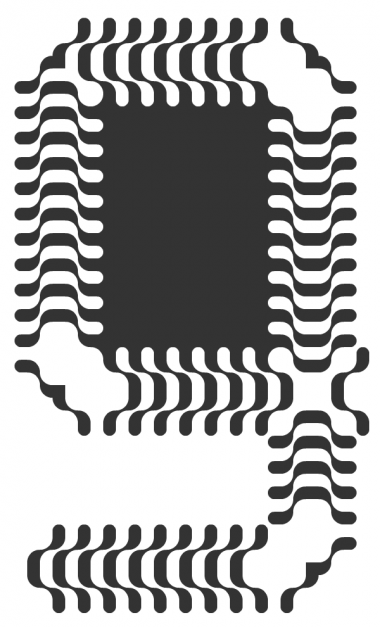
• Clone of Études pour Noir et Blanc 02 (Vertebrae).
Whew! Is that Intel's new chipset? ;-) C'est magnifique.
Wow ! like Geneous, I am voiceless ! Surely a new classic microcircuit font ! BRAVO FRODO
And Yes, blackfilled letters enhanced very much the chipset sensation
Magnificent! The more I looked at this, the more I became entranced by the organic, amoeba like, white 'blobs'. 10/10
I know you had many top picks but they did not give you the most important. This is for me your most extraordinary font so far. And very useful : I used it on the inner Title Page of my book of avant-garde erotic poetry "ENFENTE-MOI ET AUTRES IMPASSES PORNO". It is part of my very limited editions books series named TESTAMENT CONCENTRANT I am preparing now showing my graphic work, my textual work, and soon I hope my typographic work in sort of Catalogue Raisonné. I found your i and more generally the strokes on this font very evocative. It suited perfectly to illustrate these texts about absurd, impossible sexuality.
I made improvements on it, cause that Z alone had not enough sense in the page. So please hide the precedent version
You're onto something here: glyphs singing to a different hymnsheet. Very intriguing.
@geneus1: It certainly looks like one (CPU), but it wasn't my intention. I was only after the op art visual.
@neurone error: C'est genial. Thank you for discovering the potential in this font. Nice blend with your works, including John Thomas, and lovely color selection.
The dimensions of the book will be about 21x27,3 cms so I let you imagine the real size of your e on the page